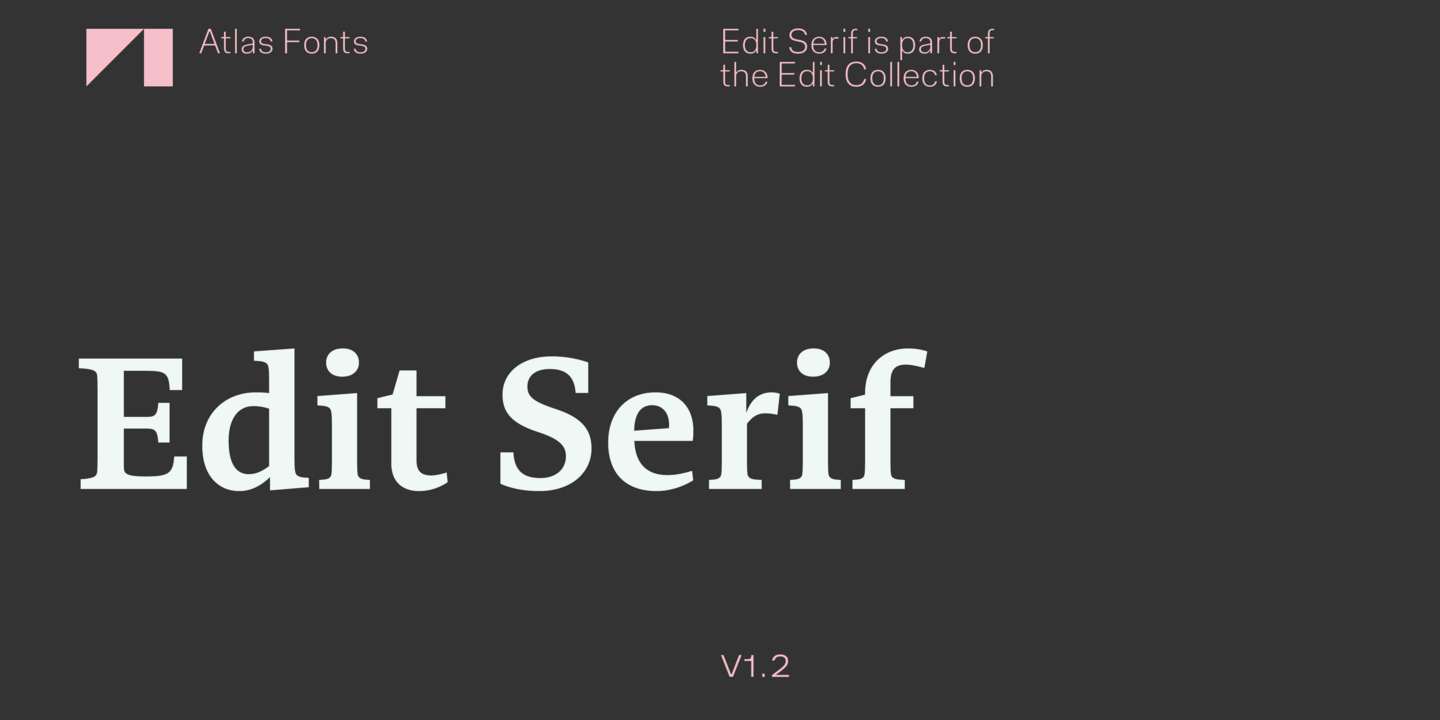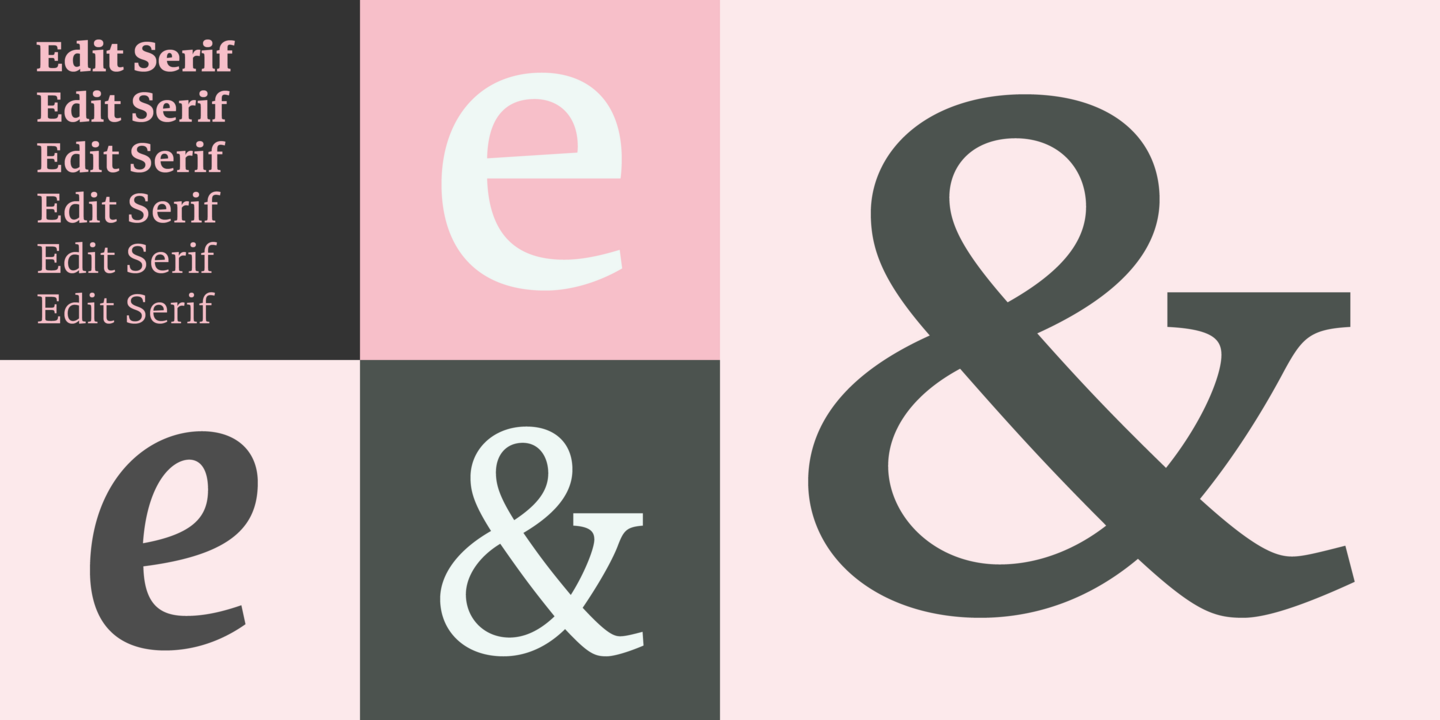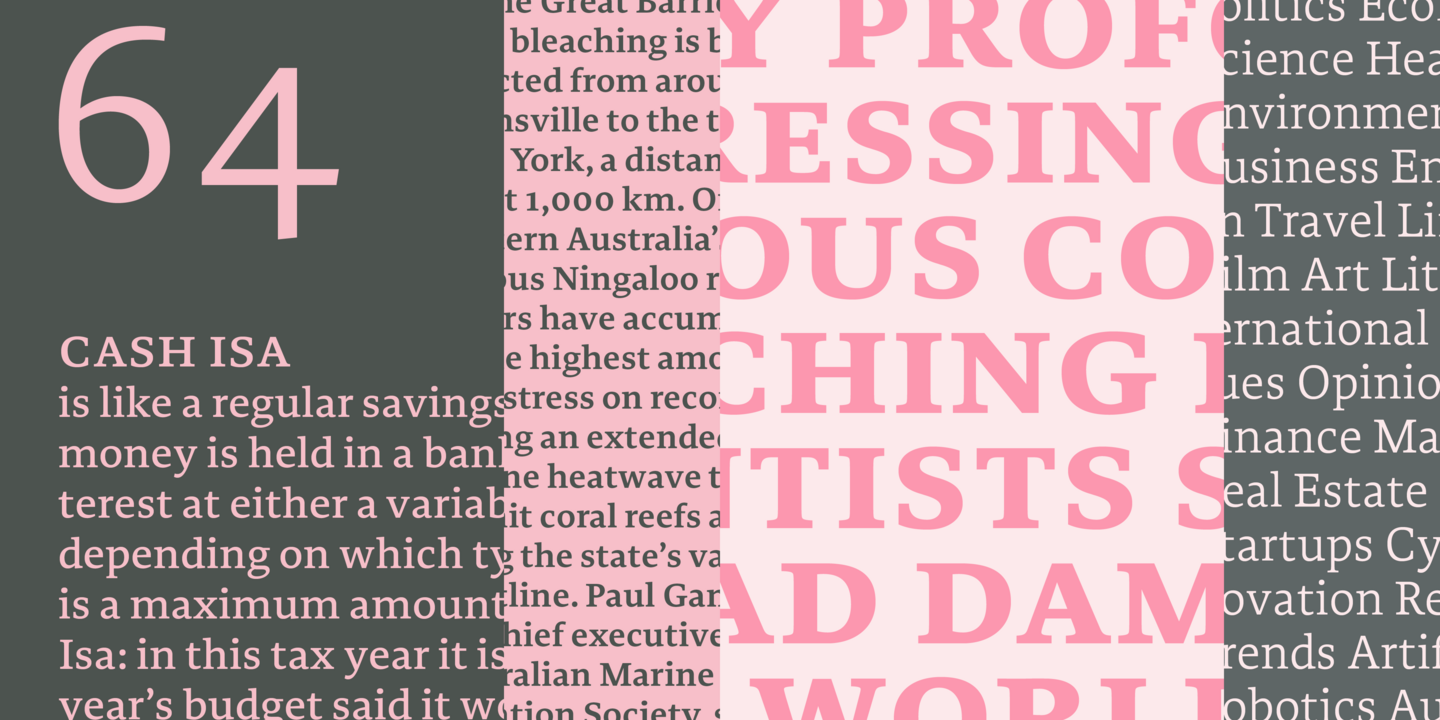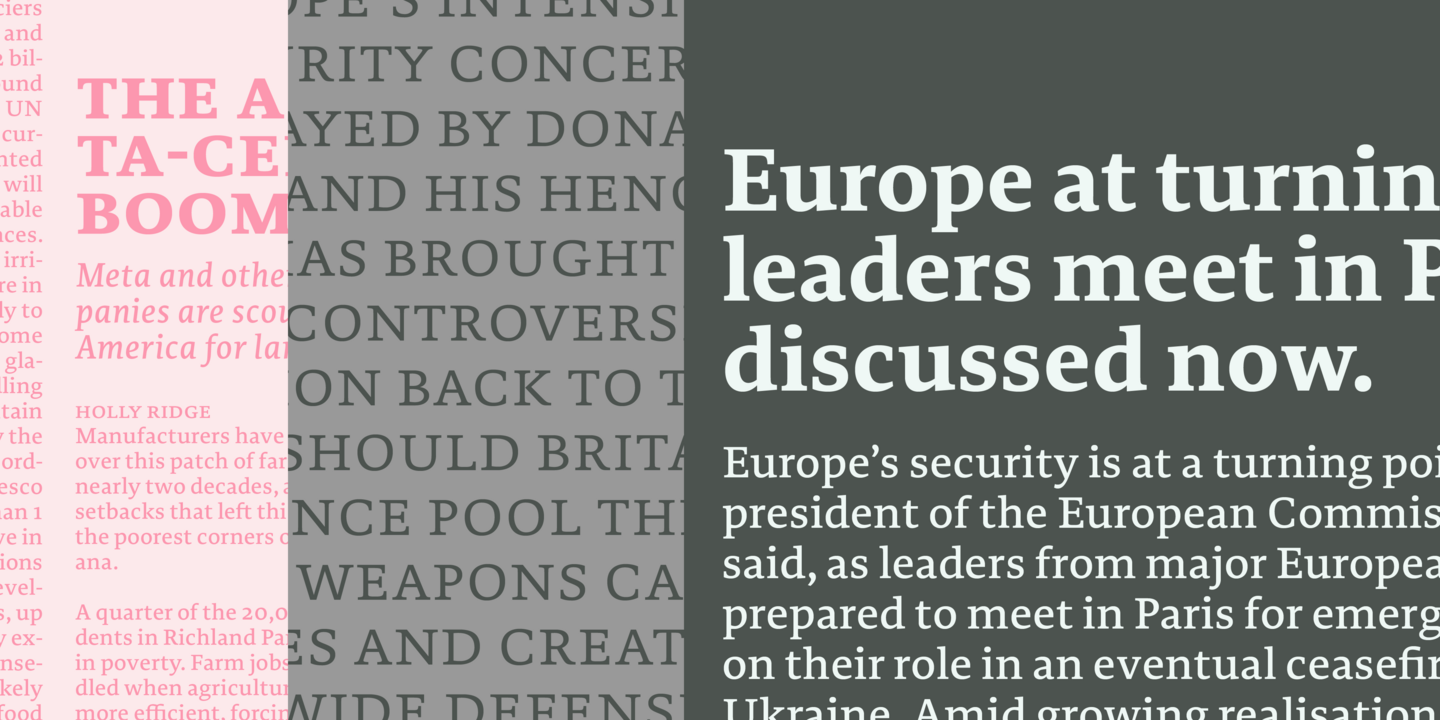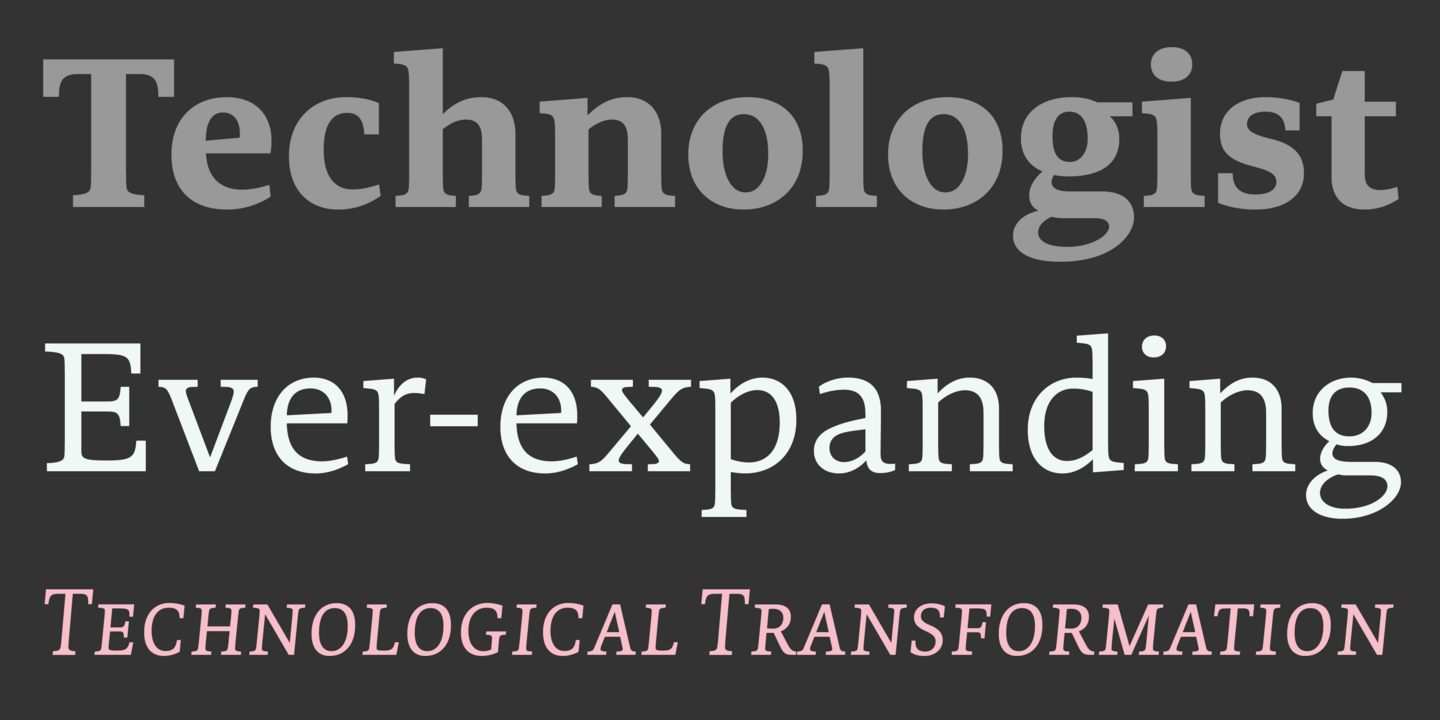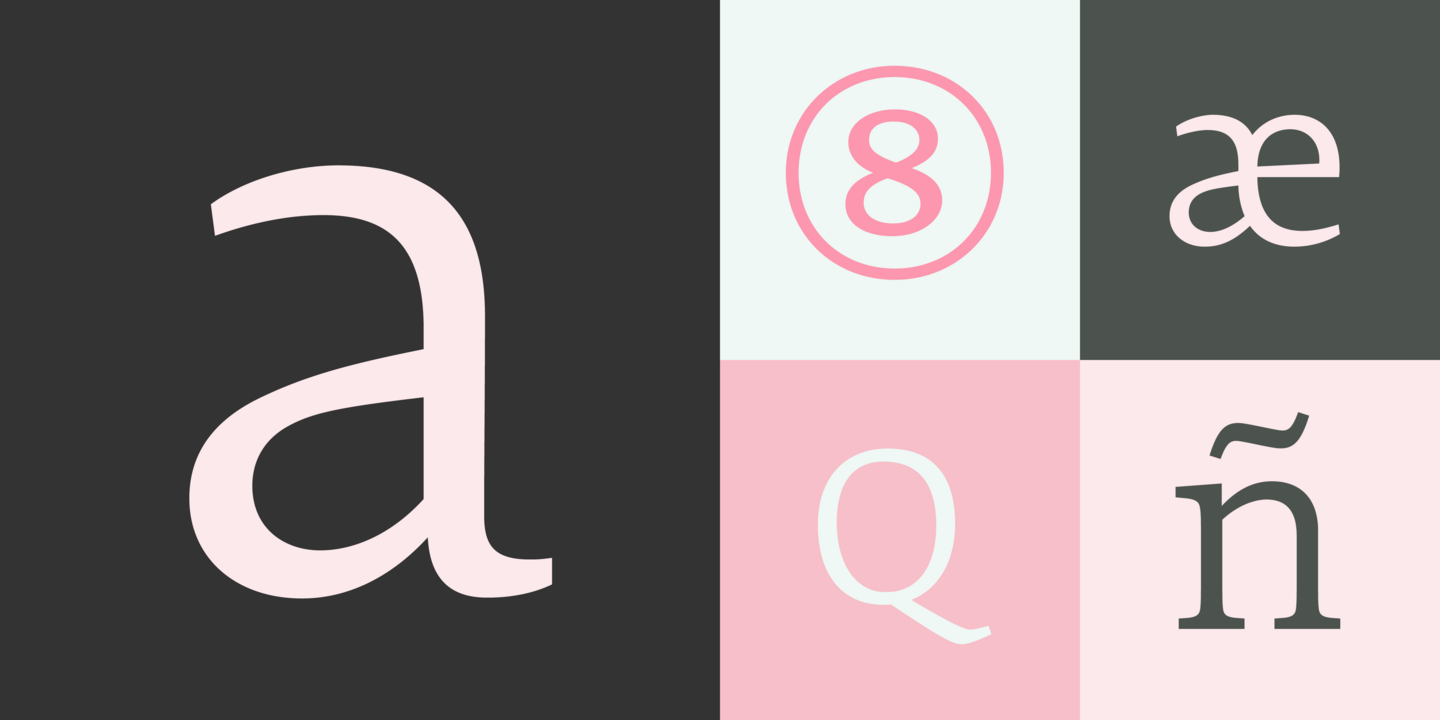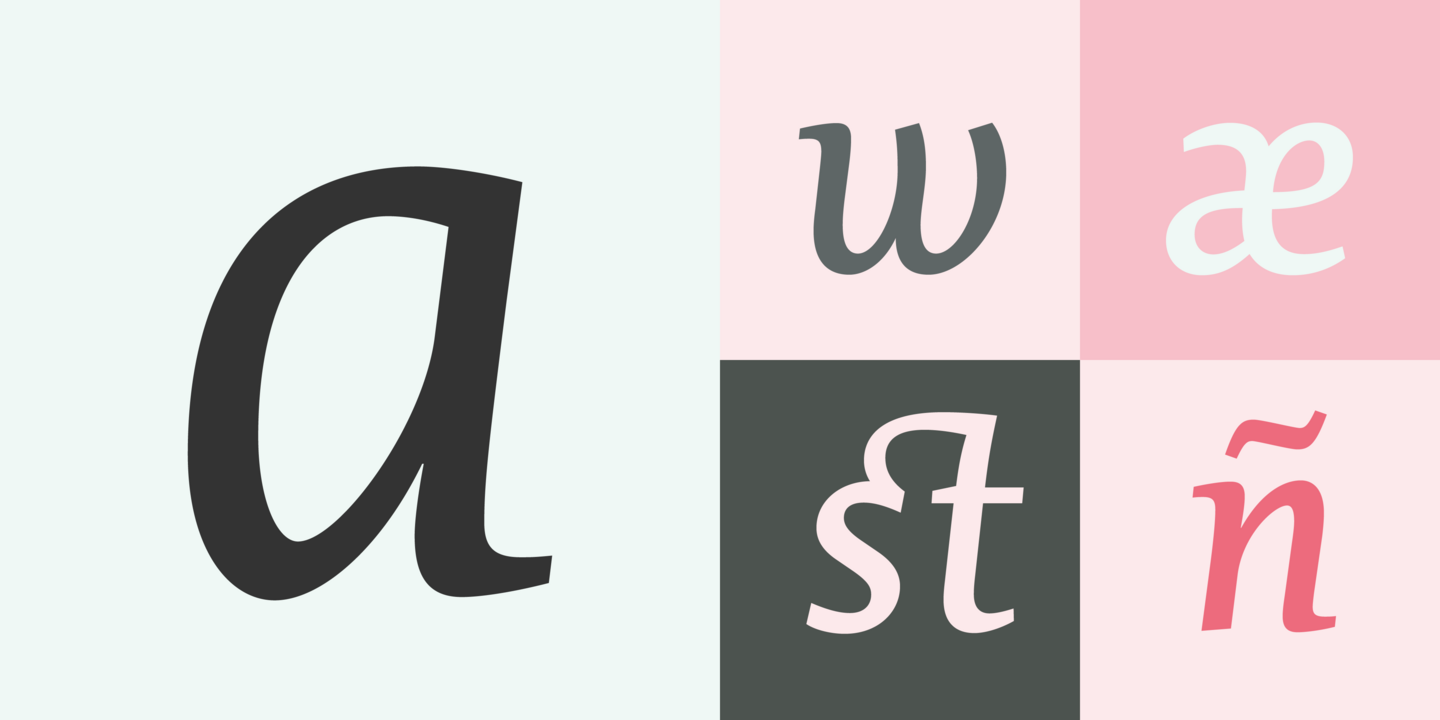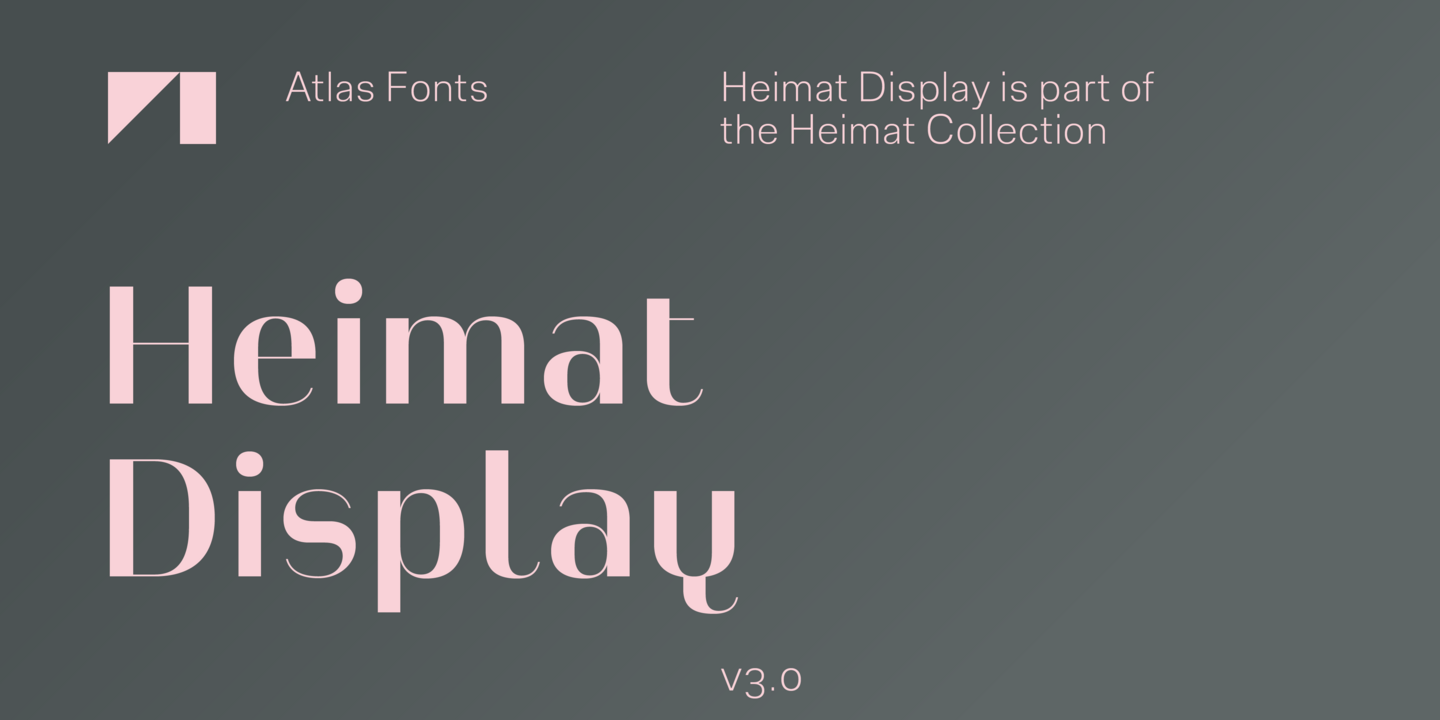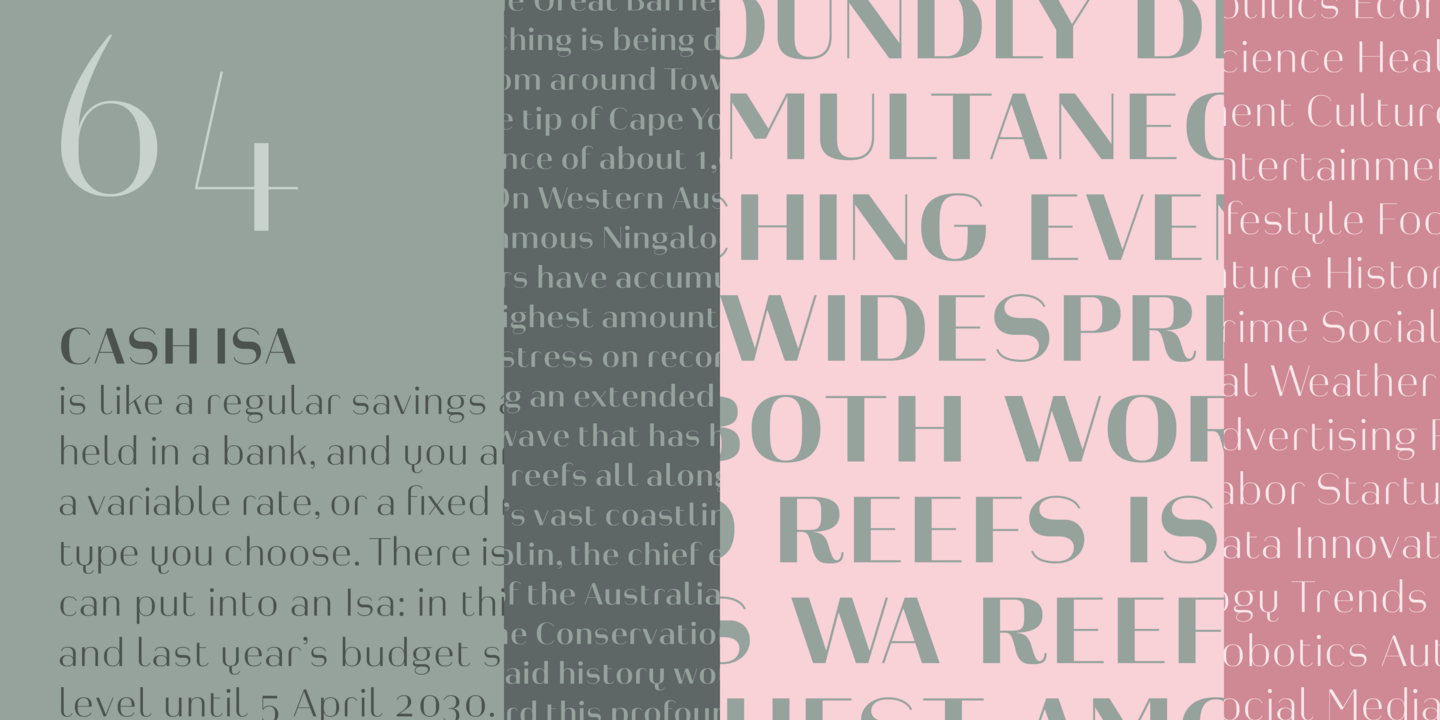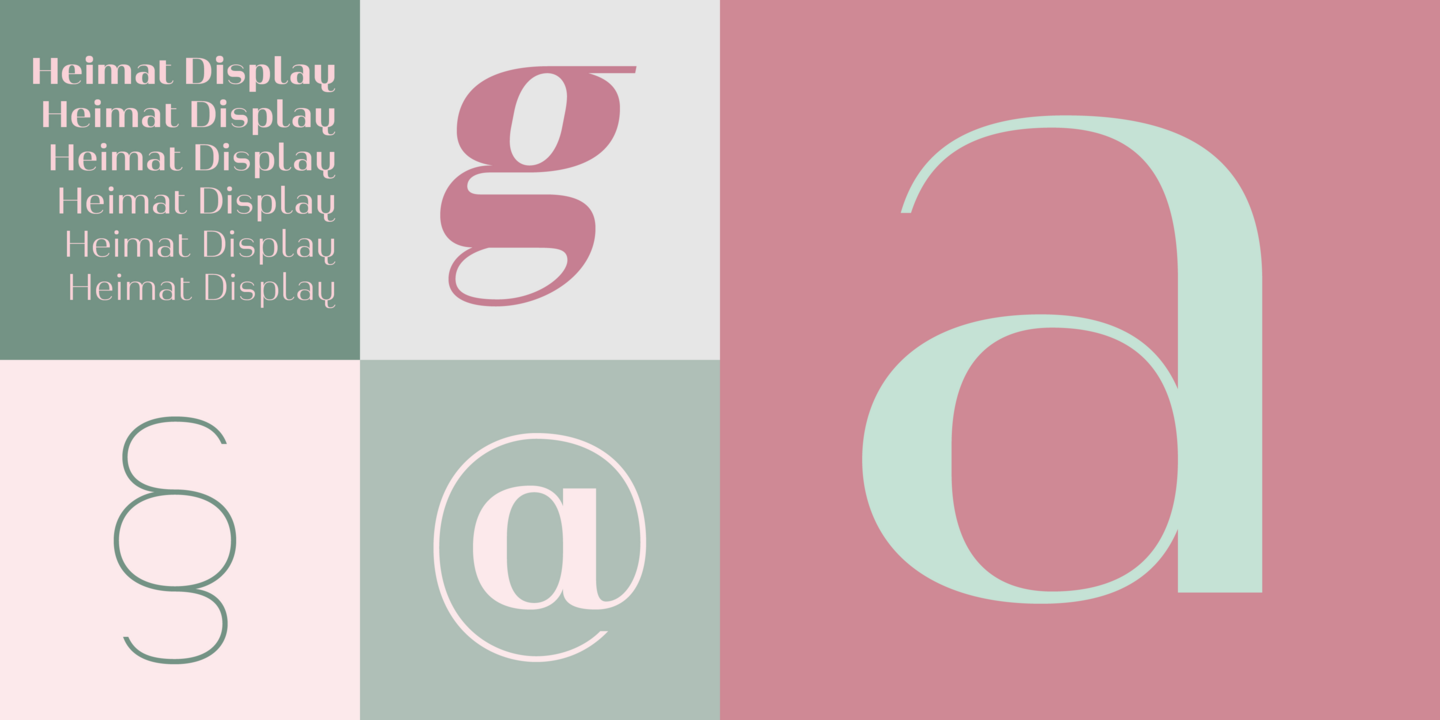
Designed for extended reading, this elegant serif combines distinct details with a clear and rational appearance. Its humanist design and crisp forms support comfortable reading across large quantities of text, performing reliably in both small and large sizes. Extensive multilingual language support makes it well suited for editorial, publishing, and multinational communication.
Warm and precise, Novel Sans brings humanist proportions together with subtle calligraphic details for clear, comfortable reading across print and digital. Upright italics—one of the features the Novel Collection is known for—add refined contrast to structured text. Five carefully developed widths allow it to adapt to a wide range of layouts while supporting multilingual communication.
Developed for contemporary typography, Heimat Display is particularly suited to headlines, posters, and other large-scale settings. The design combines a distinctive character with references to the grid-based letter construction of the late 1920s. It is part of the Heimat Collection, which also includes Heimat Sans, Heimat Didone, Heimat Stencil, and Heimat Mono.
Built for compact headlines, titles, and wordmarks, Novel Display brings the Novel Collection into high-impact typography. Economical spacing and editorial-informed proportions support structured layouts, while upright italics add elegant contrast and clarity even in dense settings. The family offers five widths and a broad weight range, extending to ultra-heavy styles.
Developed for contemporary typography, Heimat Grotesk combines a distinctive character with references to the grid-based letter construction of the late 1920s. Designed primarily for headlines and posters, it also remains suitable for extended reading. The character set includes both the original alphabet and a calmer alternate design. It is part of the Heimat Collection, which also includes Heimat Sans, Heimat Didone, Heimat Stencil, and Heimat Mono.
A softer take on Novel Sans, this design within the Novel Collection features rounded terminals and humanist proportions for a natural, approachable tone. Upright italics introduce subtle elegance and visual contrast, maintaining readability across diverse applications. The family comes in five widths with extensive multilingual support.
Atlas Font’s typographic systems are built to perform across all environments—from large-scale to micro text, and from one script to another. Founded in 2011 and based in Berlin, Atlas Fonts develops tools for contemporary design practice.
Founder
Christoph Dunst